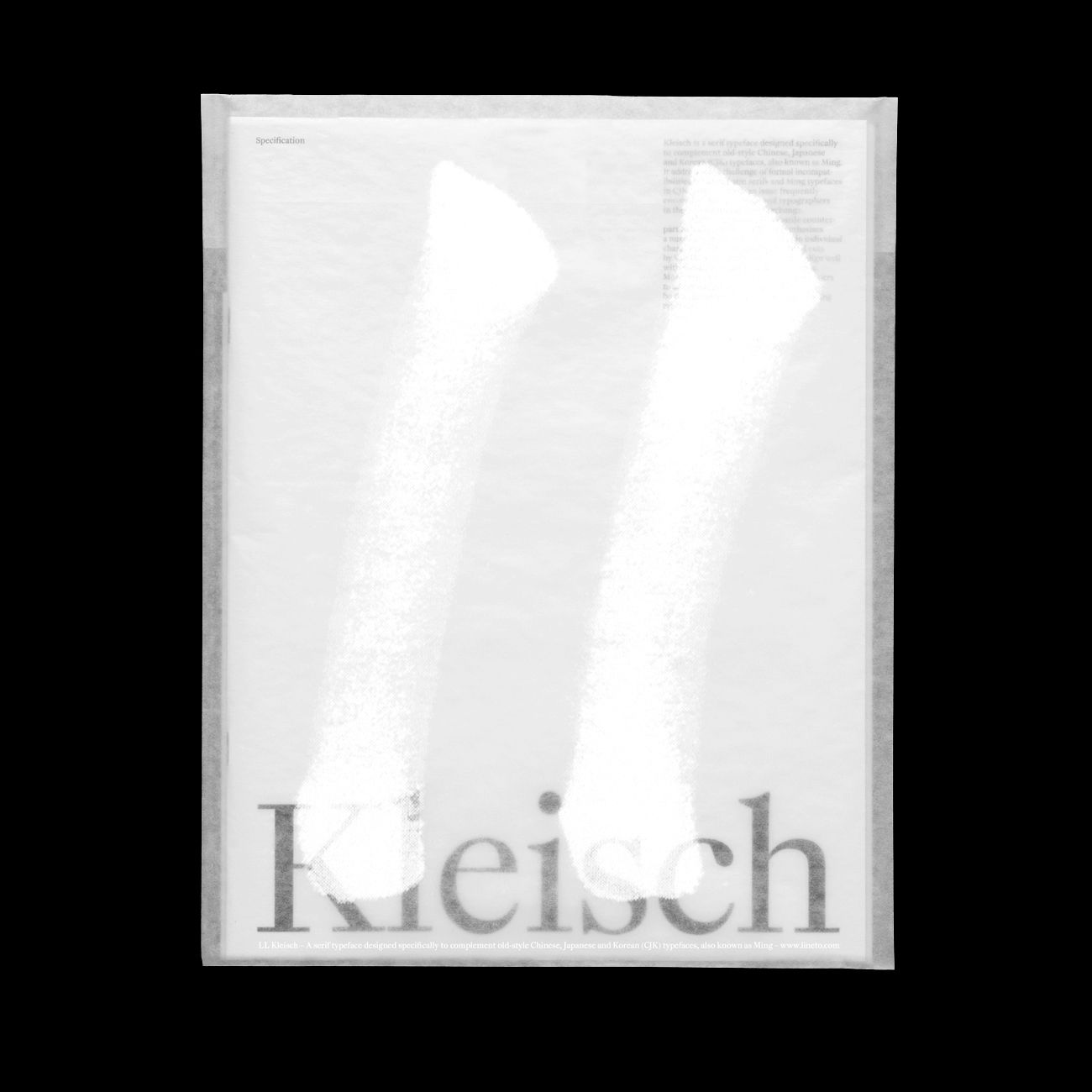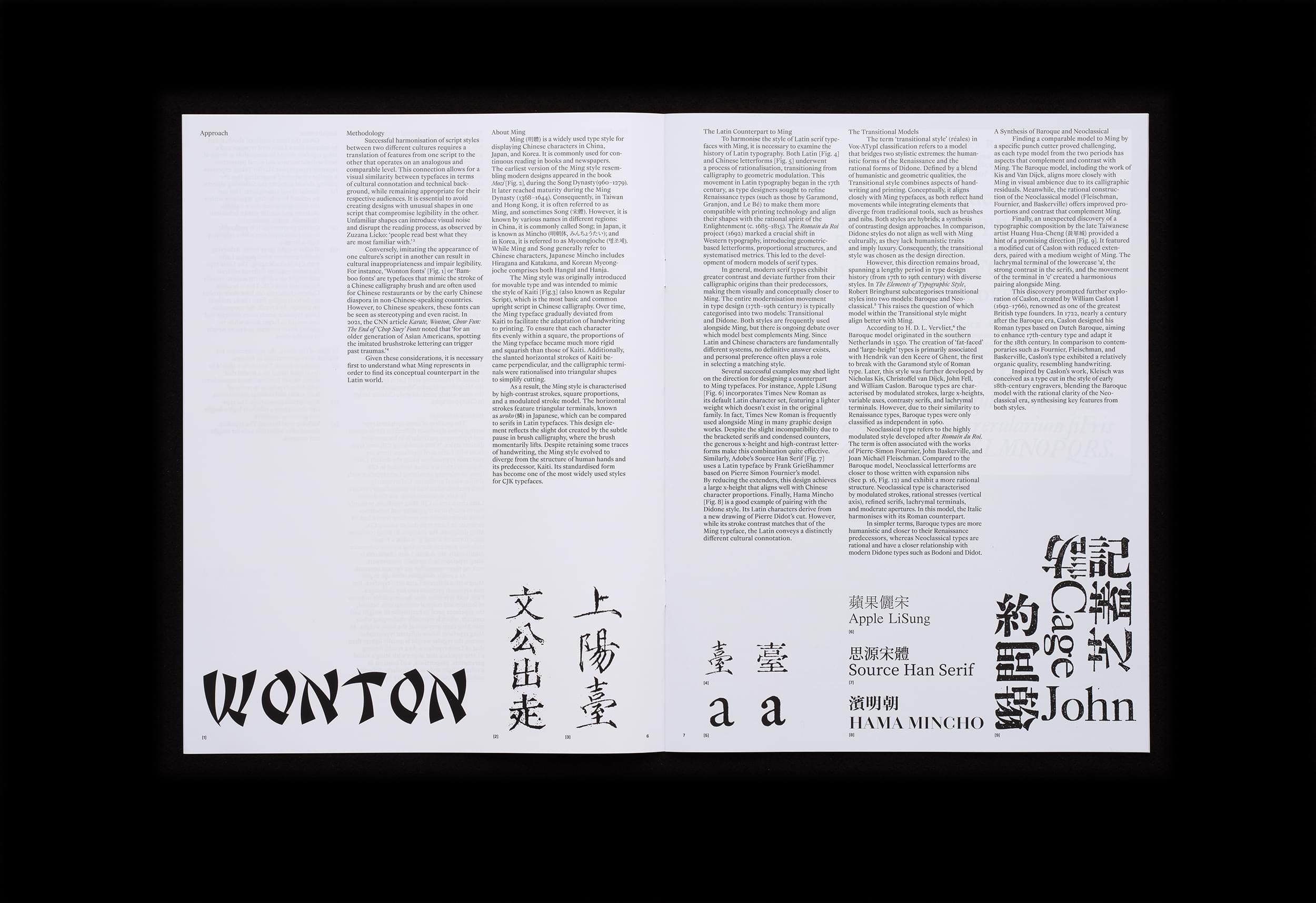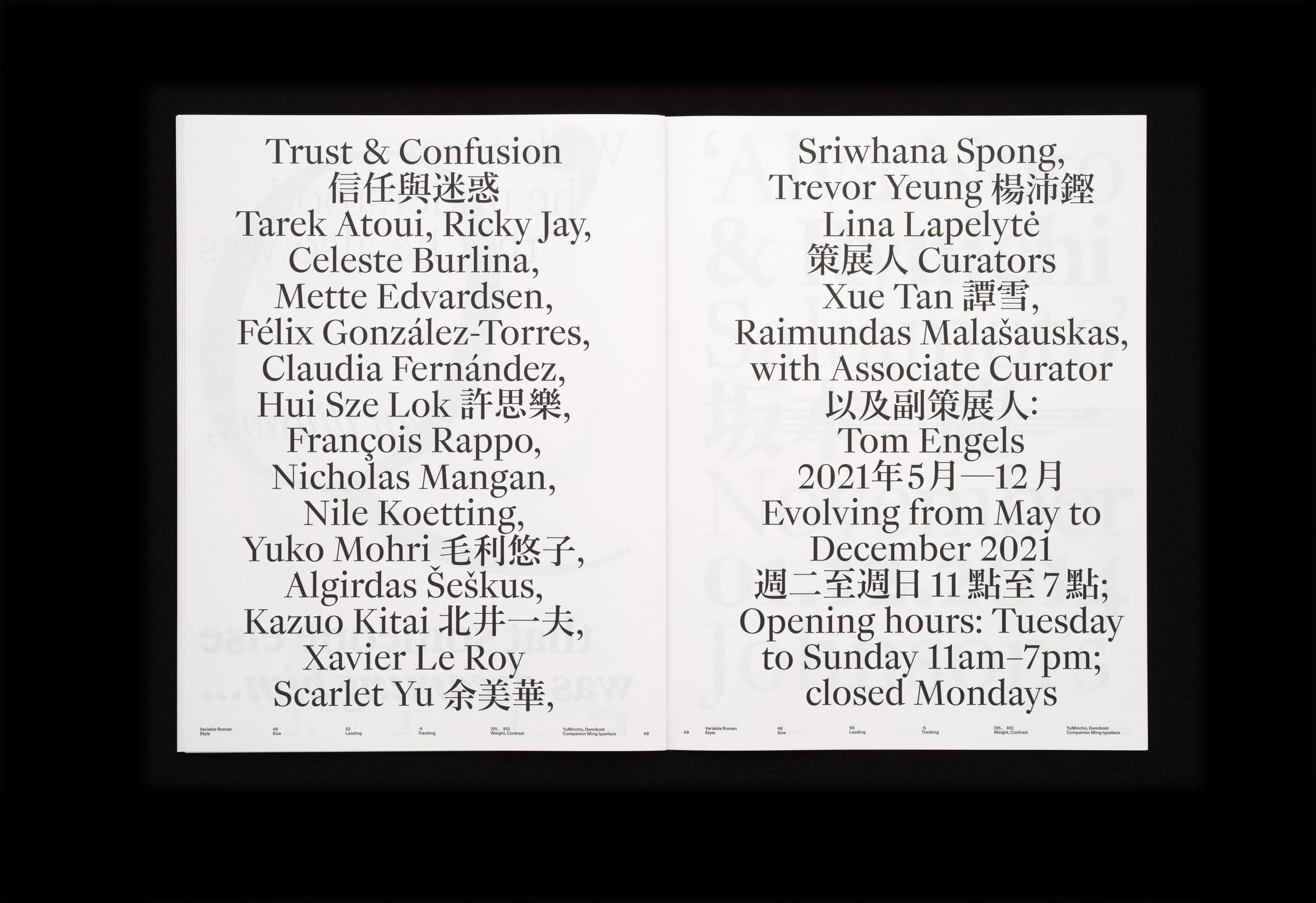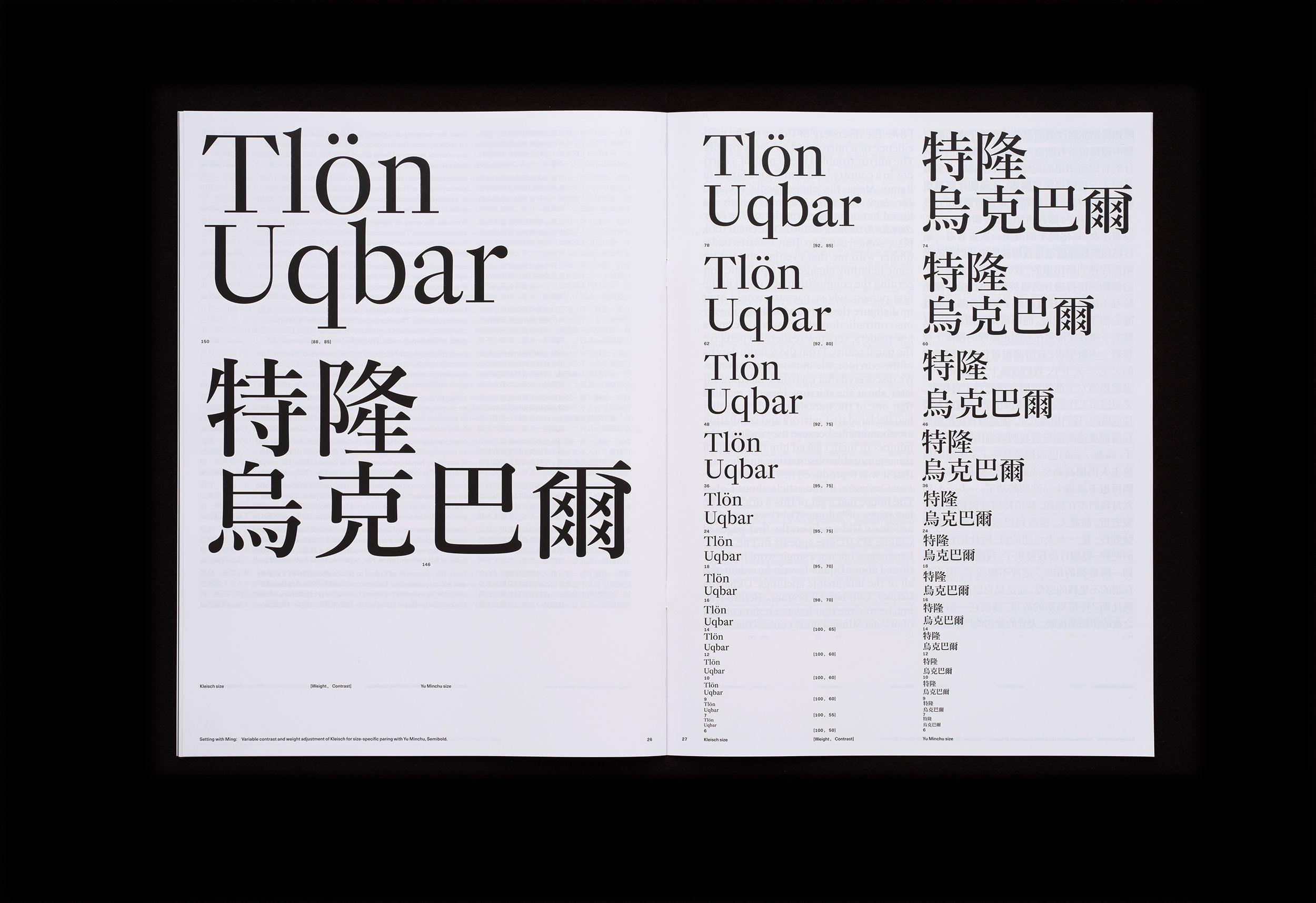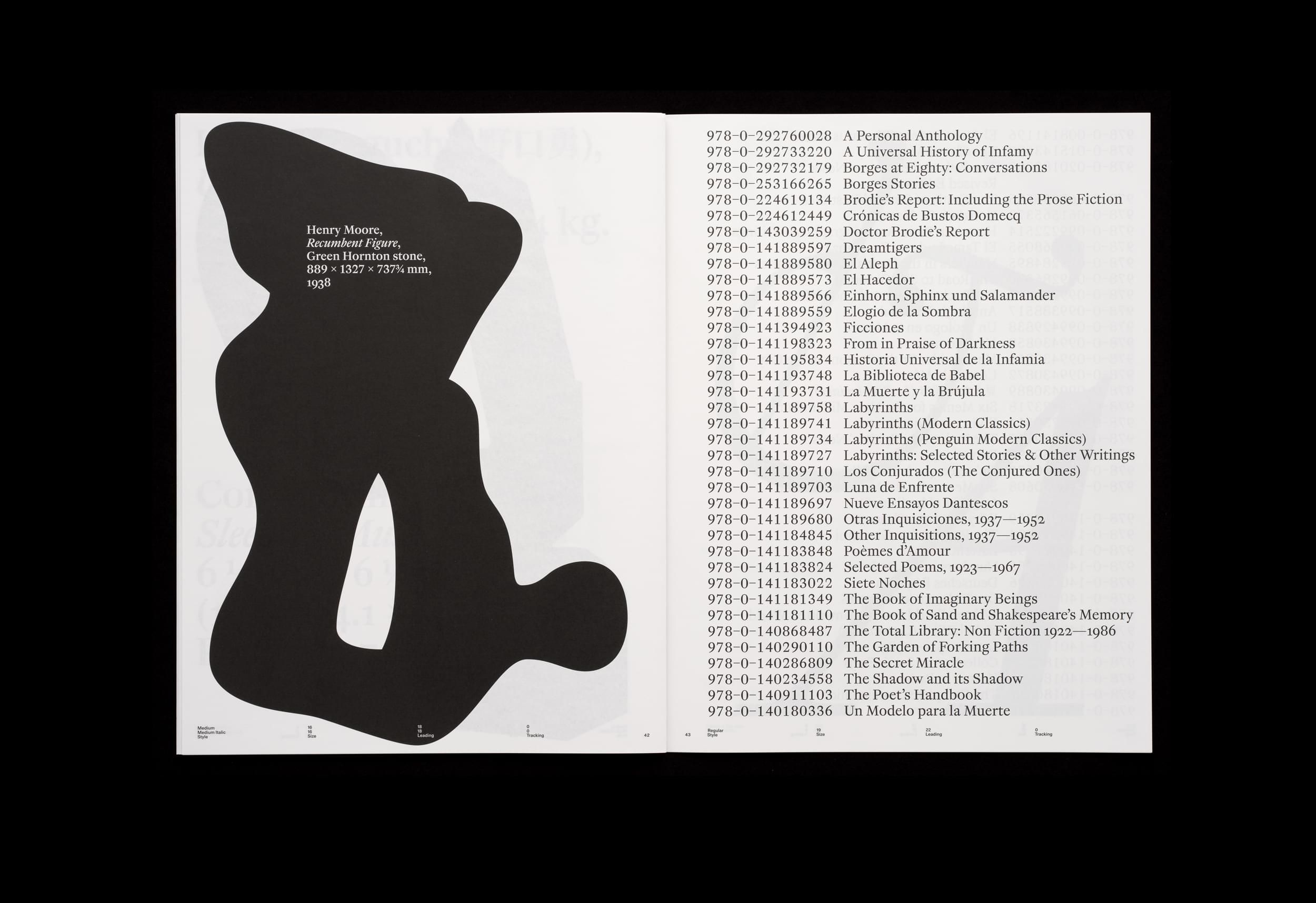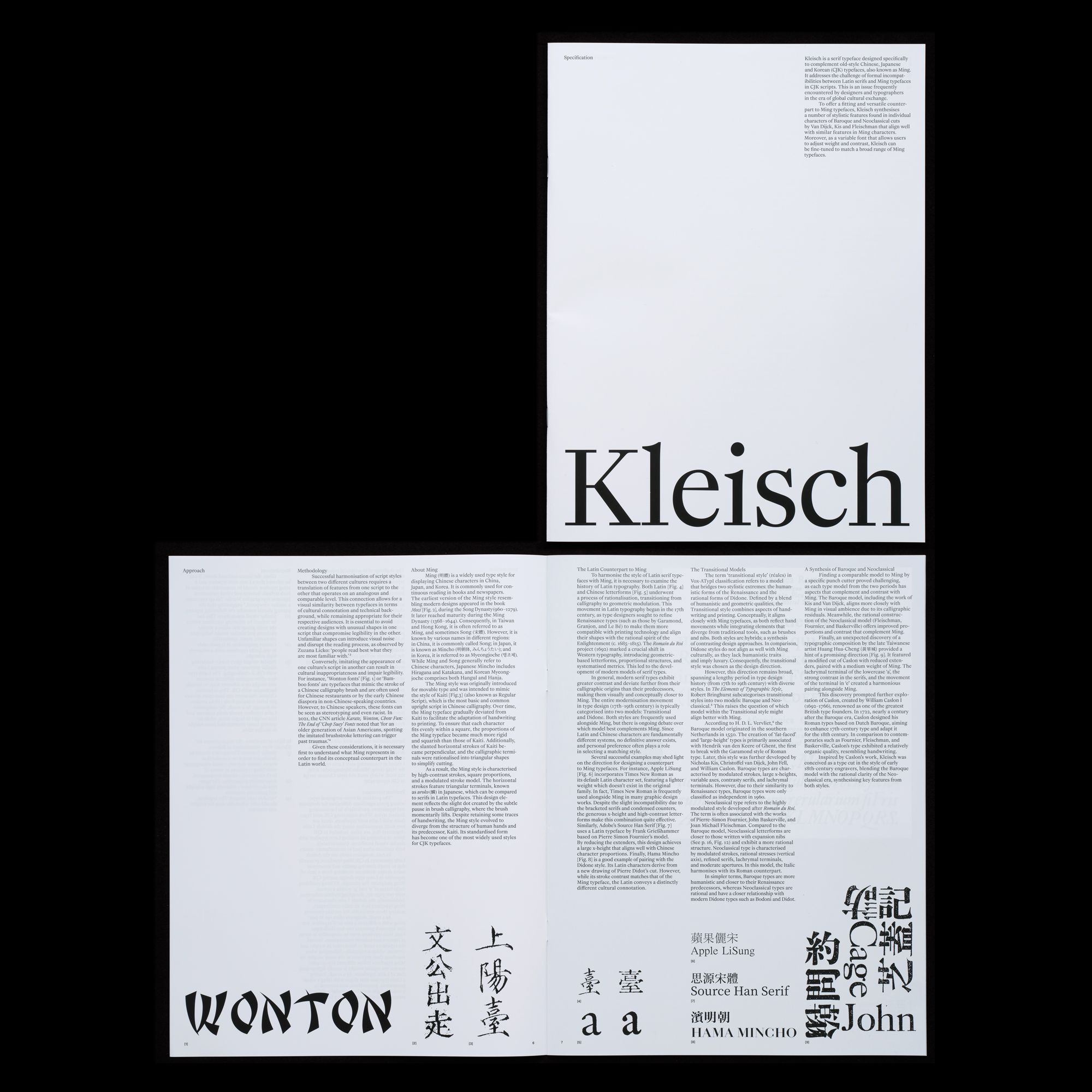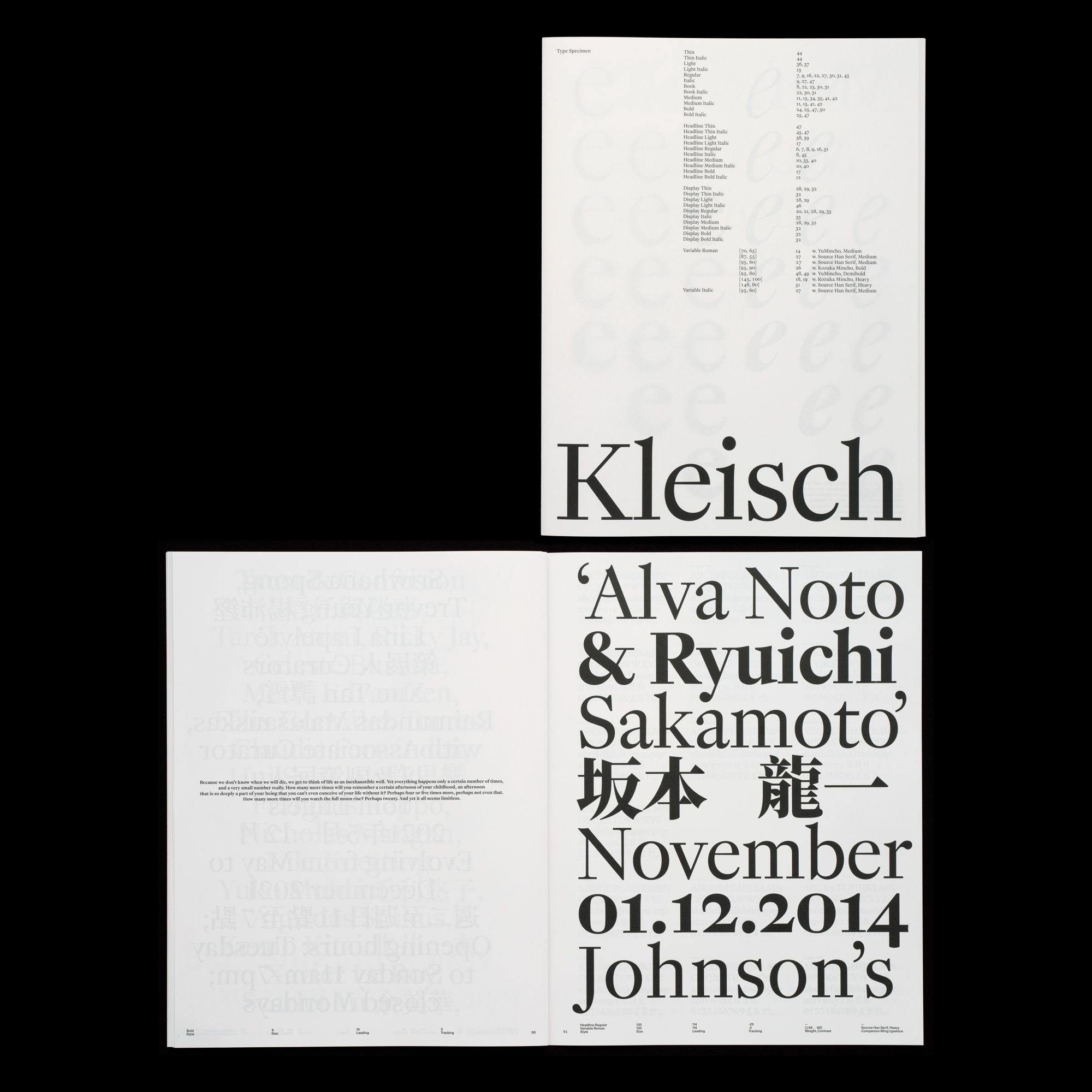
‘Kleisch is a serif typeface designed specifically to complement old-style Chinese, Japanese and Korean (CJK) typefaces, also known as Ming. It addresses the challenge of formal incompatibilities between Latin serifs and Ming typefaces in CJK scripts. This is an issue frequently encountered by designers and typographers in the era of global cultural exchange.’